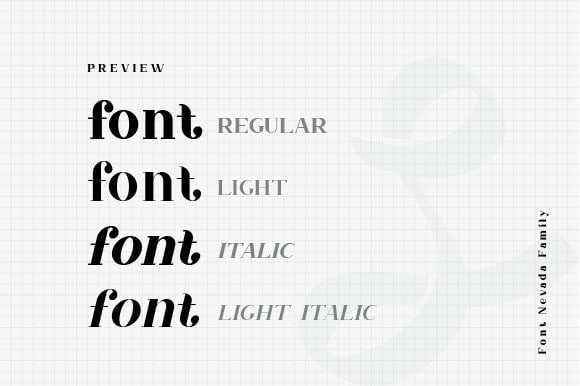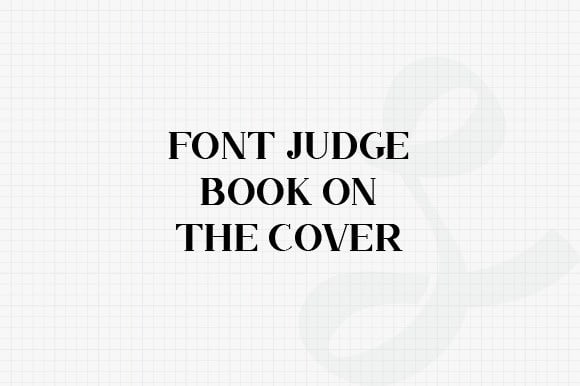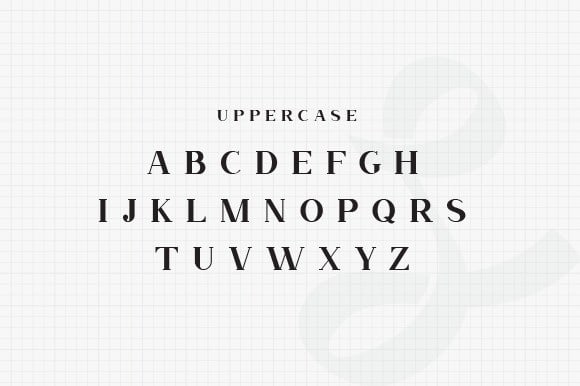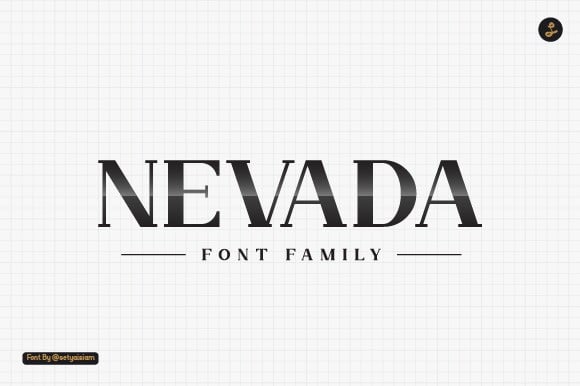
Nevada Slab Serif Font
Nevada Slab Serif Font is a modern serif with loads of style. A unique modern font that is a mix of old and new. The Elegant curves also make for a unique logo or masthead. Made from font designer named setyaisiam. A simple and casual slab serif font with an undeniably clean feel. With its neat and beautiful arrangement of letters, this typeface will look outstanding in both formal and non-formal designs.